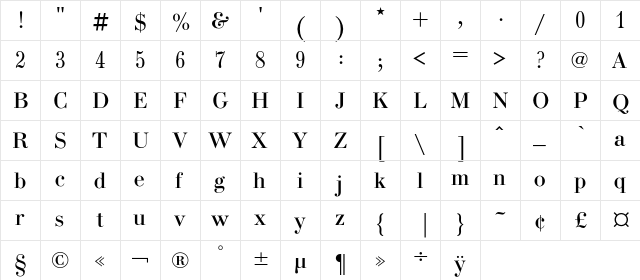
DedaEna Regular
Design Context for DedaEna Typeface
DedaEna is a composed and adaptable typeface that performs quietly and consistently across a wide range of design contexts.